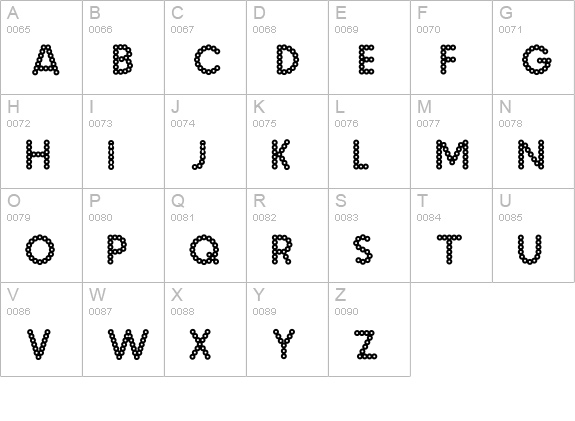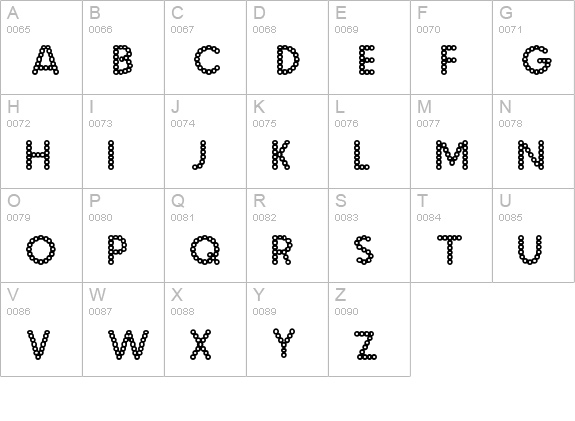
Malache Crunch Font Details
Malache Crunch is a bold and energetic font that exudes a sense of playfulness and excitement. Its unique design combines sharp edges with rounded corners, creating a captivating visual aesthetic that commands attention. This versatile font is perfect for a wide range of creative projects, from eye-catching headlines to vibrant logos and dynamic posters. Its bold letterforms make a strong impact and ensure clear visibility, even from a distance. What sets Malache Crunch apart is not only its striking appearance but also its accessibility. It is proudly offered as a free download at FontsMarket.com, allowing designers and enthusiasts alike to freely access this remarkable typeface. Whether you're a professional designer or a hobbyist, Malache Crunch provides you with a high-quality font that can elevate your designs without breaking the bank. With its wide range of characters, including uppercase letters, lowercase letters, numbers, and punctuation marks, Malache Crunch offers limitless creative possibilities. Its clear and legible forms ensure readability, even in smaller sizes or when used in lengthy texts. This font is perfect for creating a visual impact in various contexts, such as advertising campaigns, social media graphics, branding materials, packaging designs, and so much more. Its bold and energetic nature will instantly grab attention and leave a lasting impression on your audience. Downloading Malache Crunch from FontsMarket.com is a breeze. Simply visit the website, locate the font, and with just a few clicks, it will be ready to enhance your design projects with its unique and captivating style. In conclusion, Malache Crunch is a free font that stands out with its bold and energetic design. Its striking appearance, combined with its versatility, makes it a fantastic choice for various creative projects. Download this remarkable font from FontsMarket.com today and unlock the potential to create visually stunning designs that leave a lasting impact.